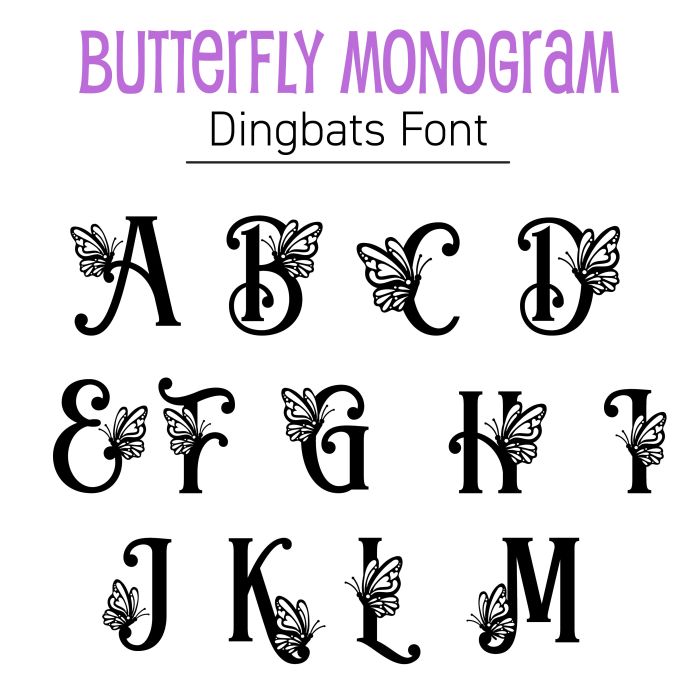
This Butterfly Monogram Alphabet is a whimsical dingbat font that features swirling, flowing letters adorned with delicate butterflies perched gracefully on their stems and curls. The butterflies’ wings incorporate subtle heart-shaped designs, adding a touch of romance and charm. Each glyph in this font exudes elegance and creativity, making it perfect for adding a nature-inspired and artistic flair to your projects. Perfect for weddings, scrapbooks, logos, and banners. Print on high-quality cardstock or textured paper for invitations and event decor, use vinyl cutting machines for decals and fabric transfers, engrave onto wood or glass for decorative signs, or incorporate into embroidery and textile printing for unique fashion or home decor projects.